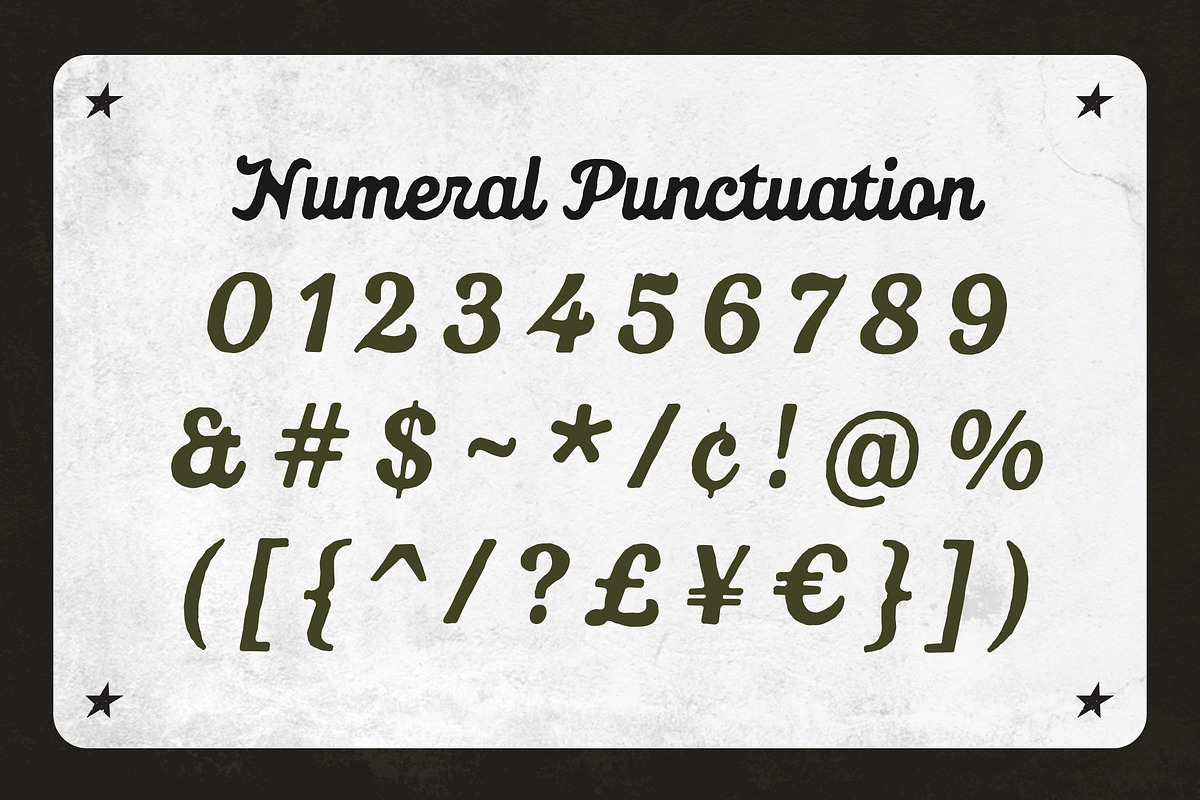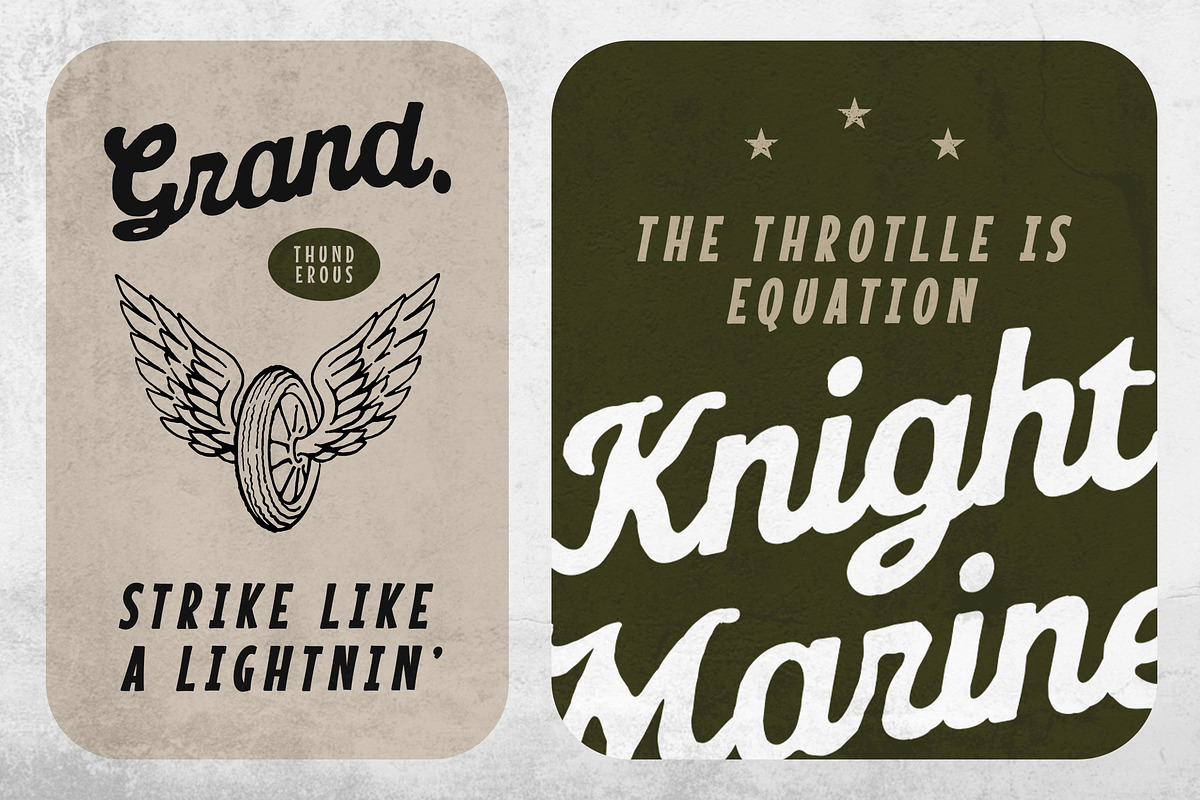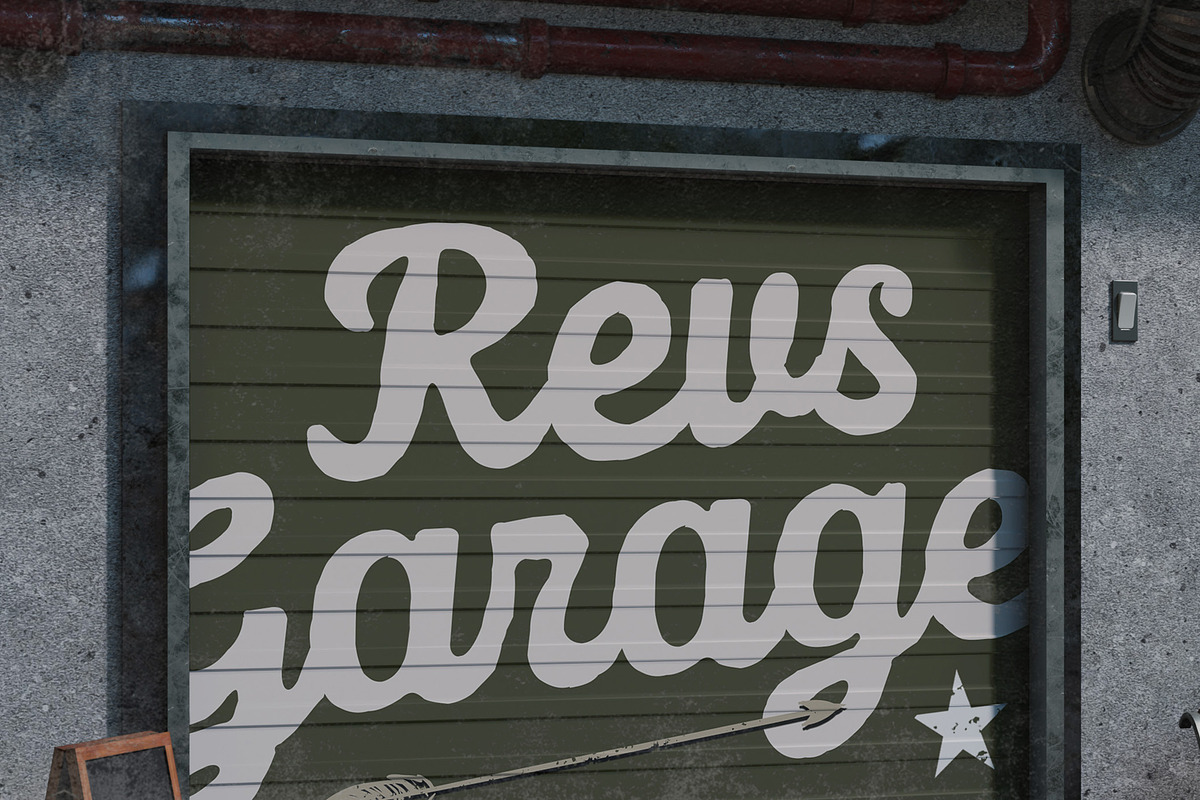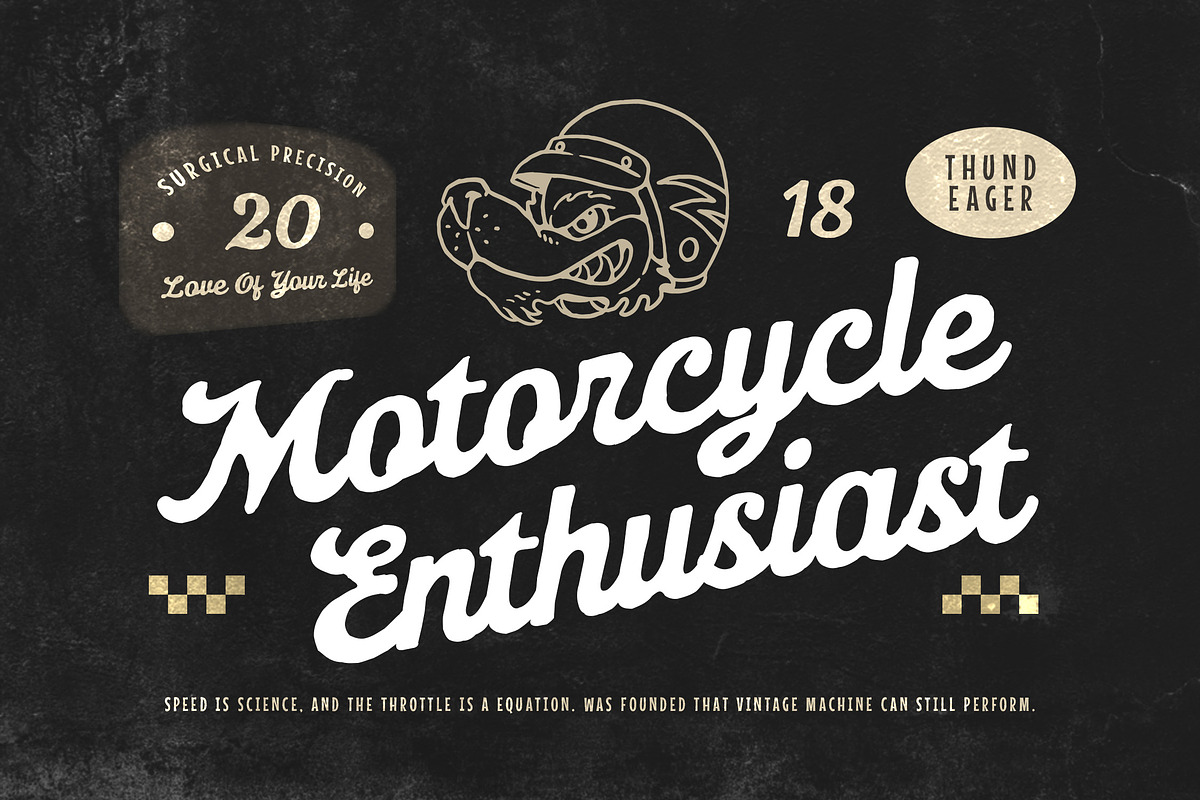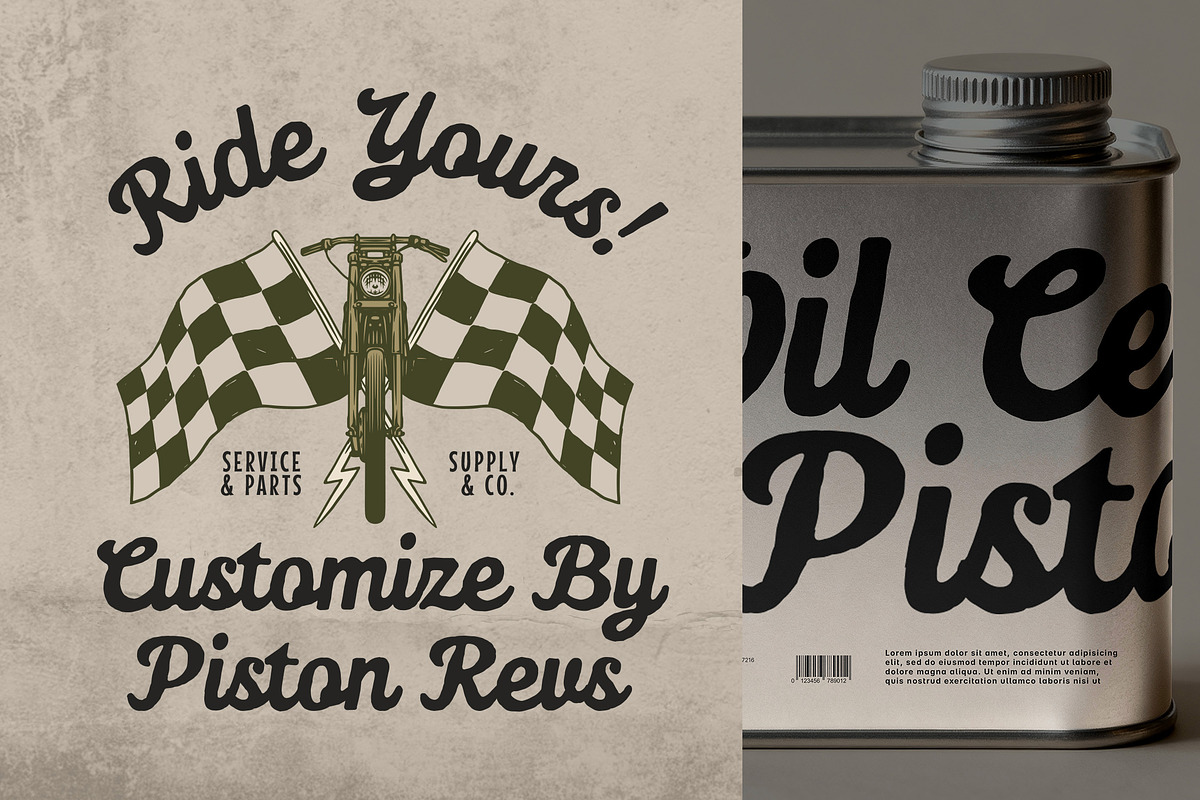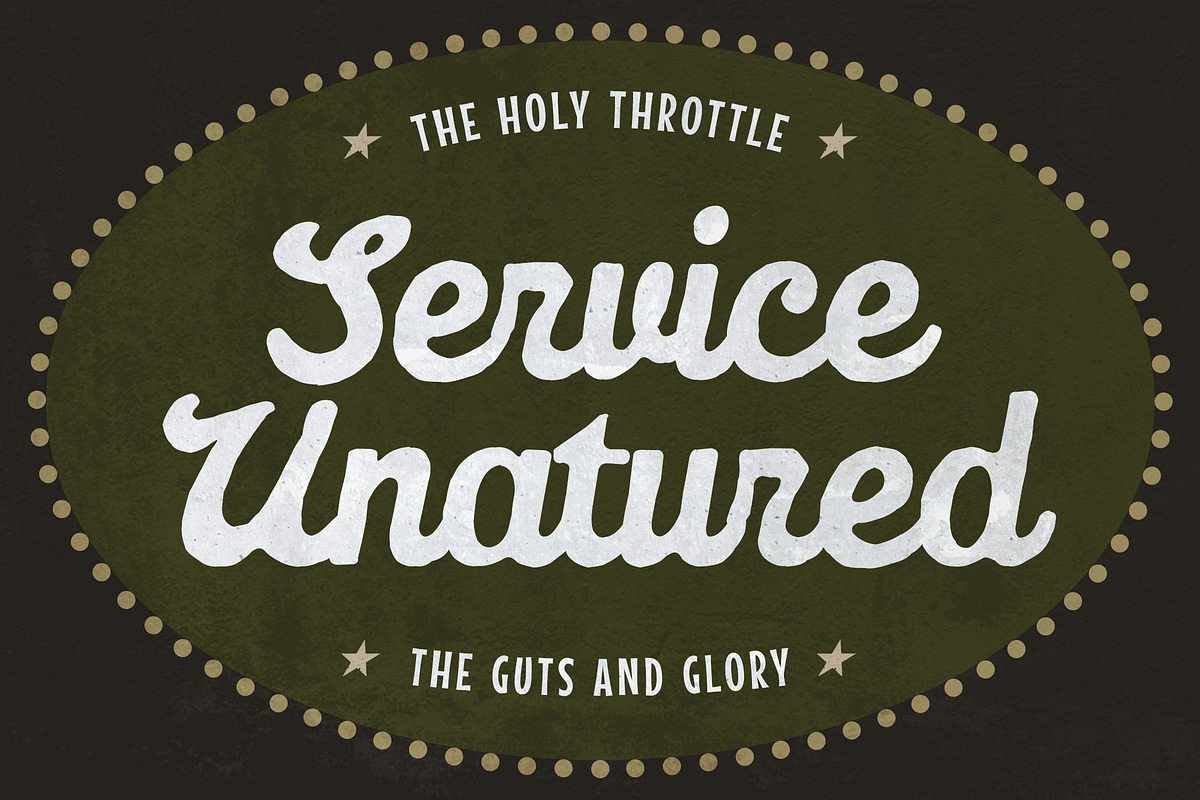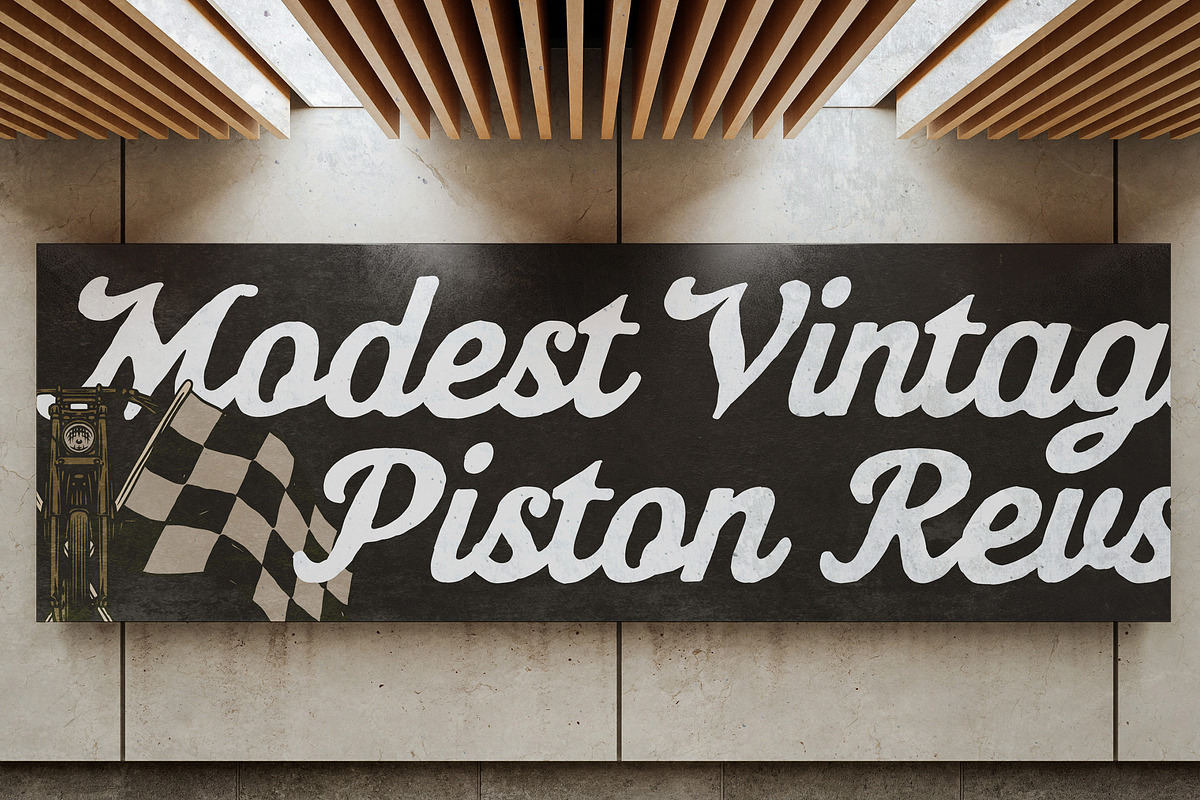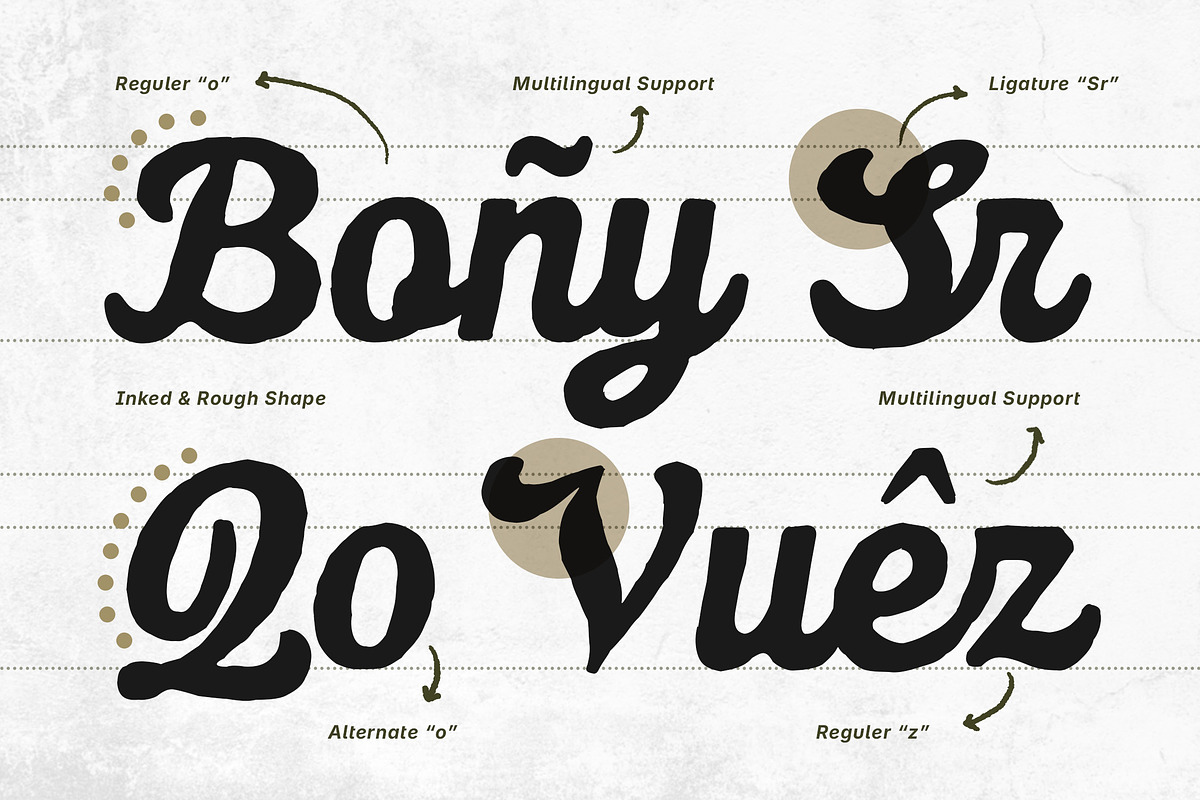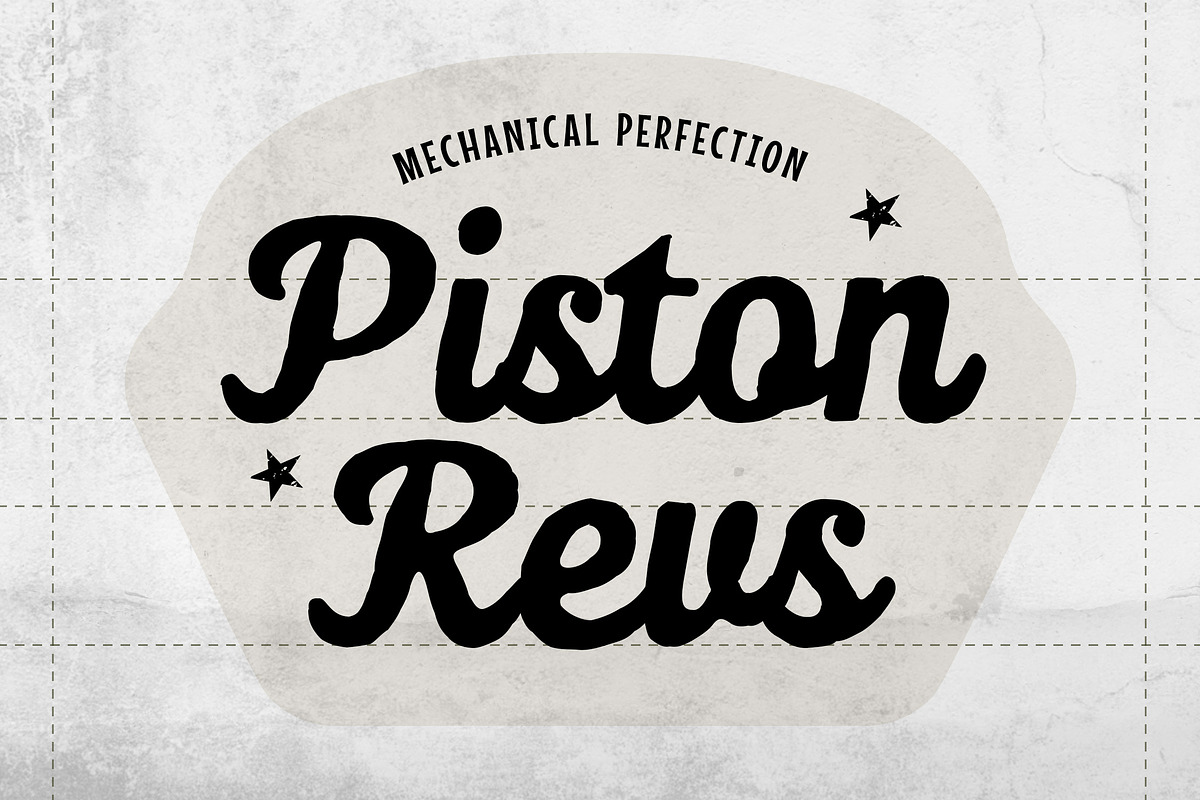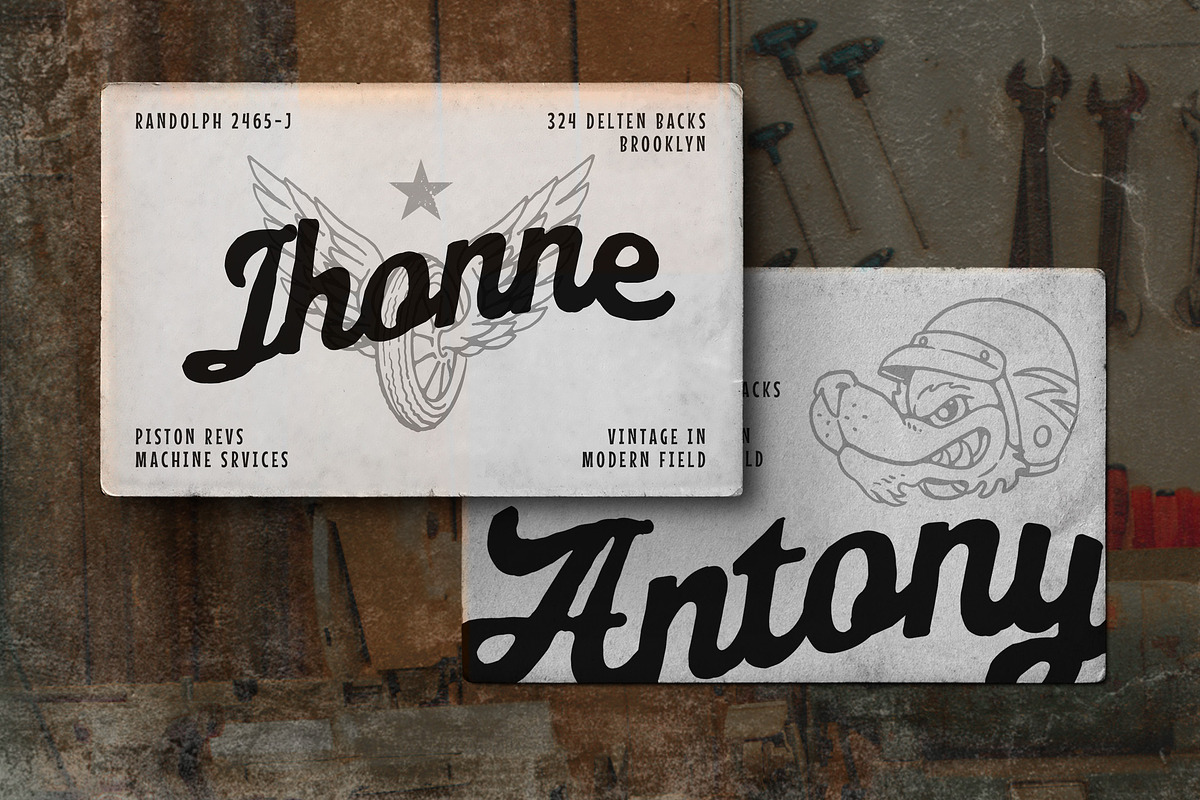
Astera Mototype – Hand Drawn Script
Astera Mototype – Rough Vintage Hand Drawn Script Font - Retro Classic Logo Display Font
Astera Mototype is a rough vintage hand-drawn script font with aged textures, flowing script strokes, and handcrafted details. This typeface delivers a bold nostalgic look full of personality and authentic character. It is perfect for automotive logos, car club merchandise, garage signage, retro badges, Western-inspired branding, custom lettering, posters, and classic product packaging. The handcrafted script style adds motion and personality, while the rough details bring an old-school worn effect that enhances every design
Drive your designs with retro attitude using Astera Mototype.